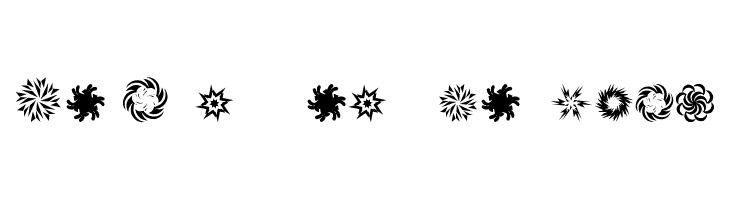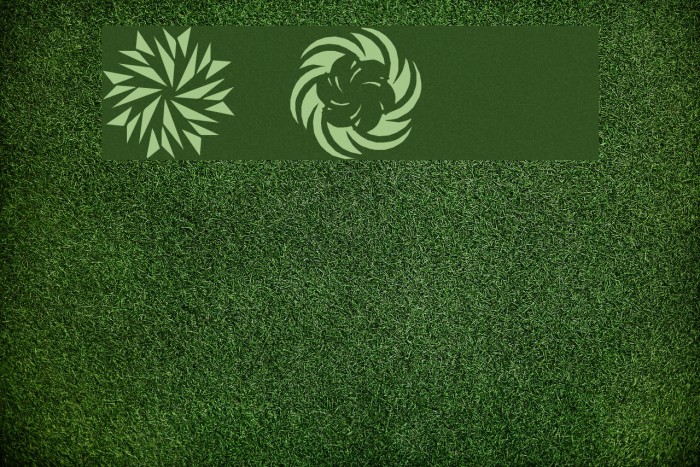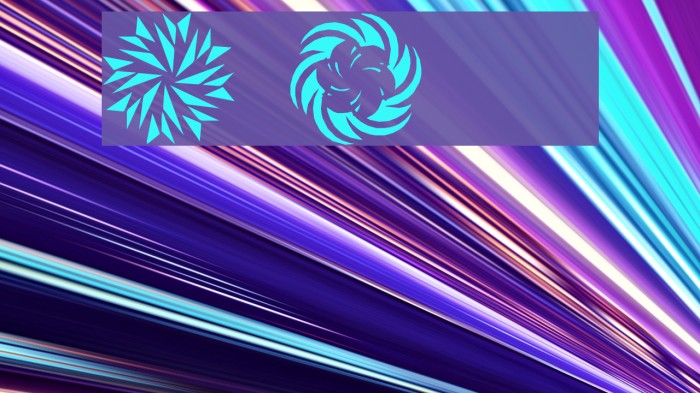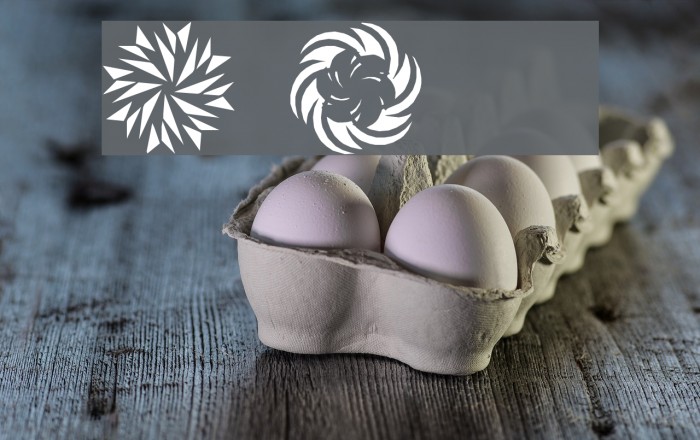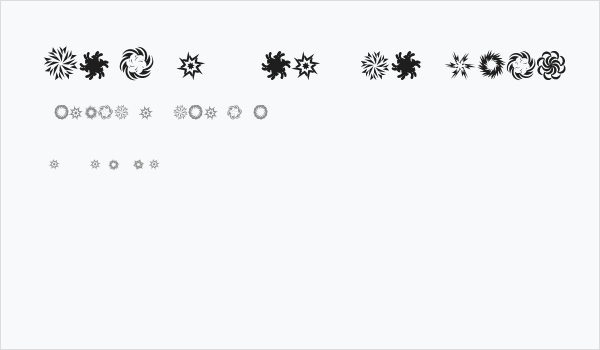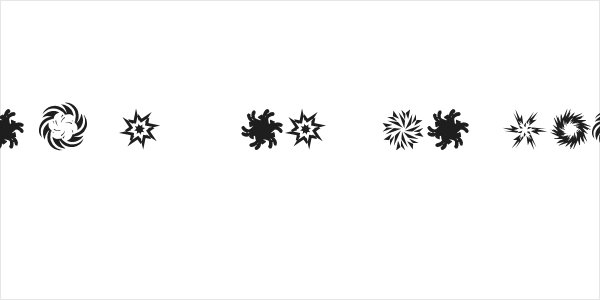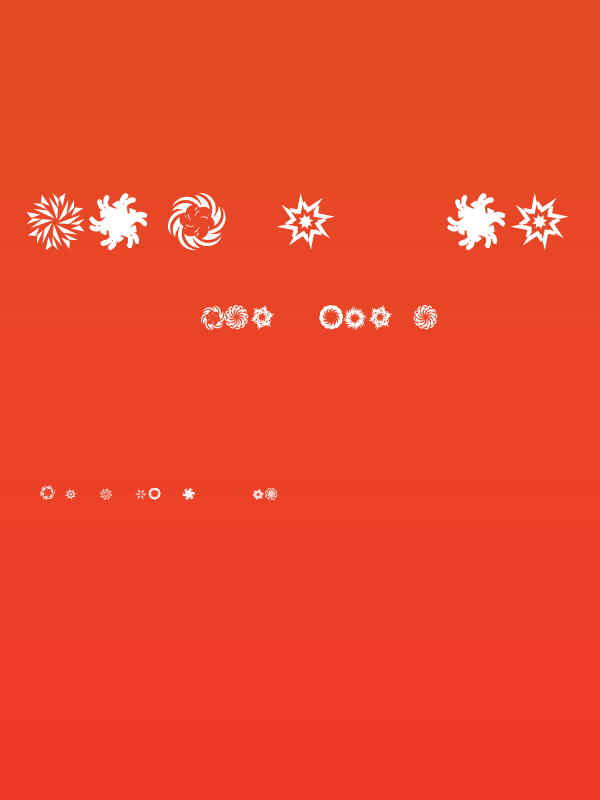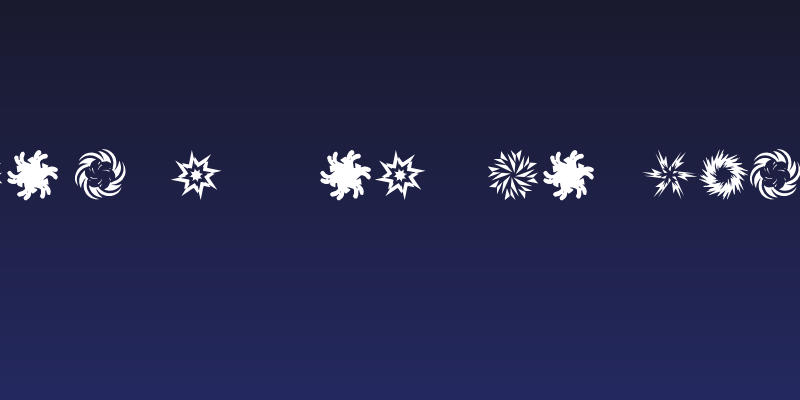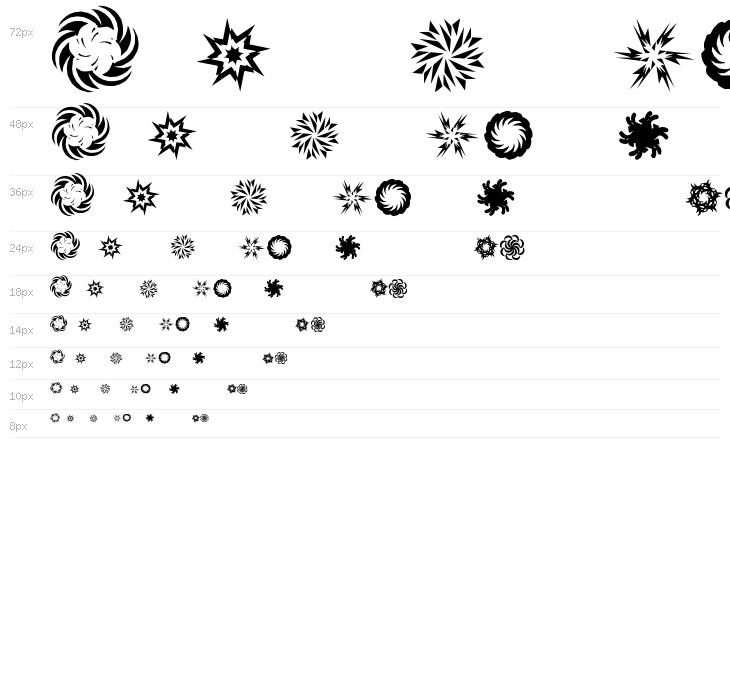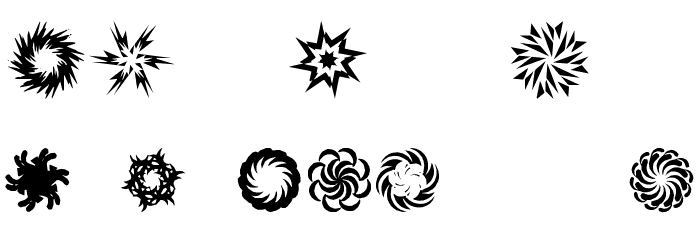
In The Zone Dingbats Font
In The Zone Dingbats Description
A collection of abstract, spiky, and swirling dingbat symbols with bold, high-contrast shapes, featuring both sharp and rounded edges. The glyphs are decorative and do not represent standard alphanumeric characters.
| Name | In The Zone Dingbats |
| Overall Style | Decorative, Abstract, Energetic |
| Use Case | Decorative elements, icons, visual accents |
| Proposed Projects | Posters, album covers, digital art, branding accents, decorative dividers, and creative backgrounds. |